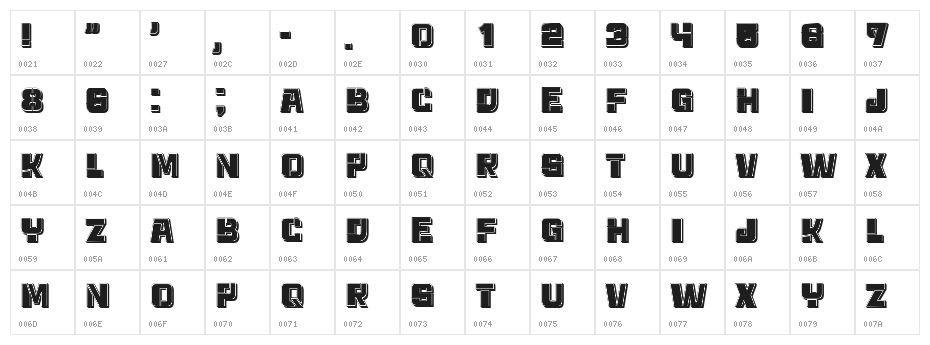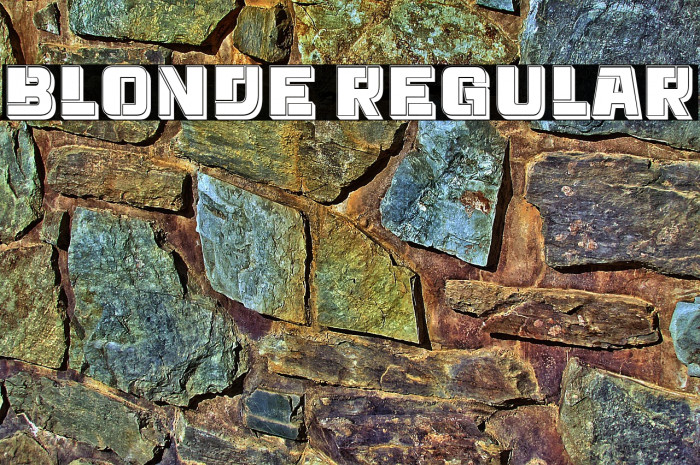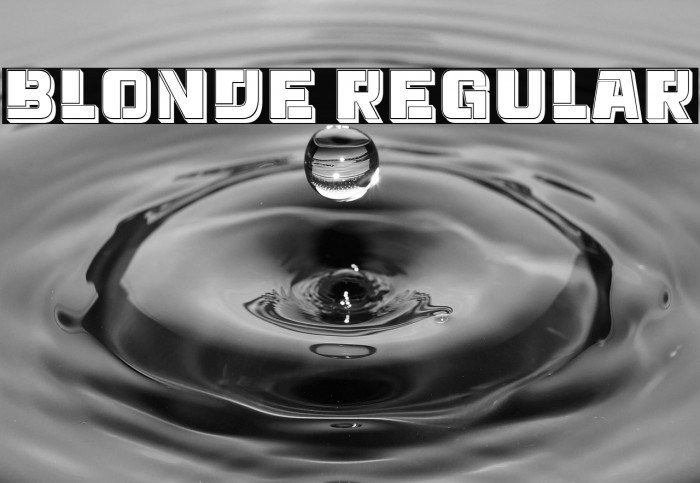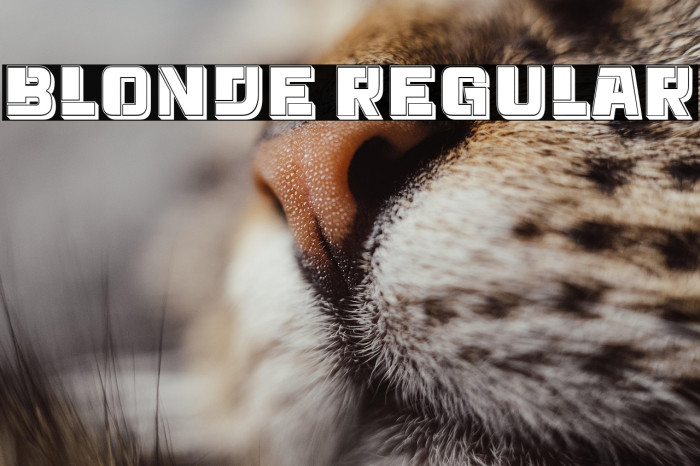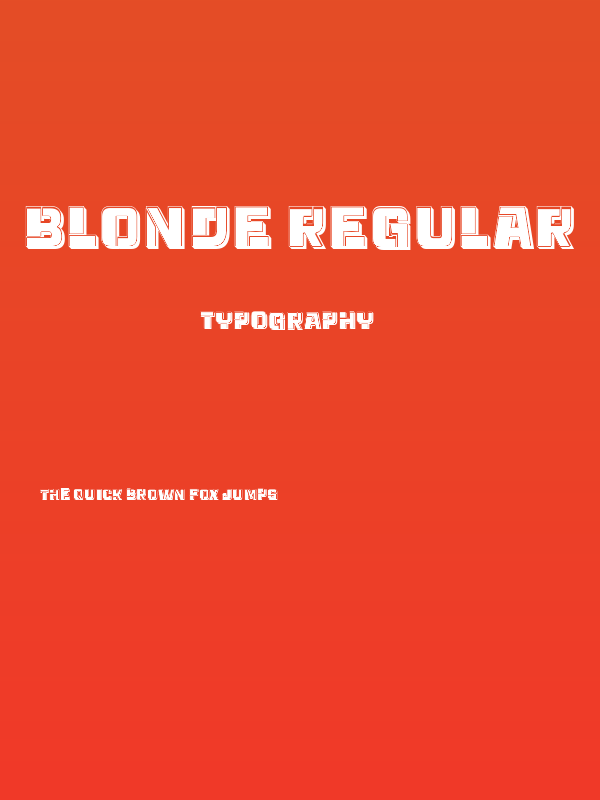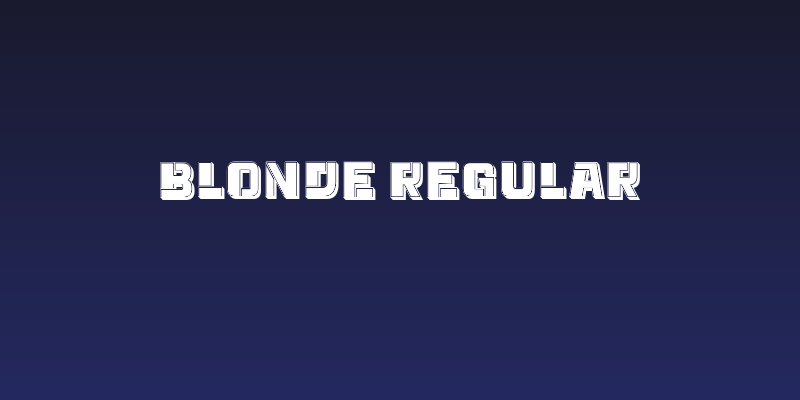
Blonde Regular Font
Blonde Regular Description
This font features a bold, geometric design with a strong presence. The characters are outlined with a thick border, creating a striking contrast between the inner and outer sections. The style is reminiscent of classic arcade or retro video game aesthetics, with a modern twist. The uppercase letters are uniform in height, while the numbers and special characters maintain the same bold, outlined style. The font's unique design makes it ideal for projects that require a standout, eye-catching typeface.
Overall StyleRetro, Modern
Proposed ProjectsIdeal for video game titles, posters, logos, and any design needing a bold, retro aesthetic.